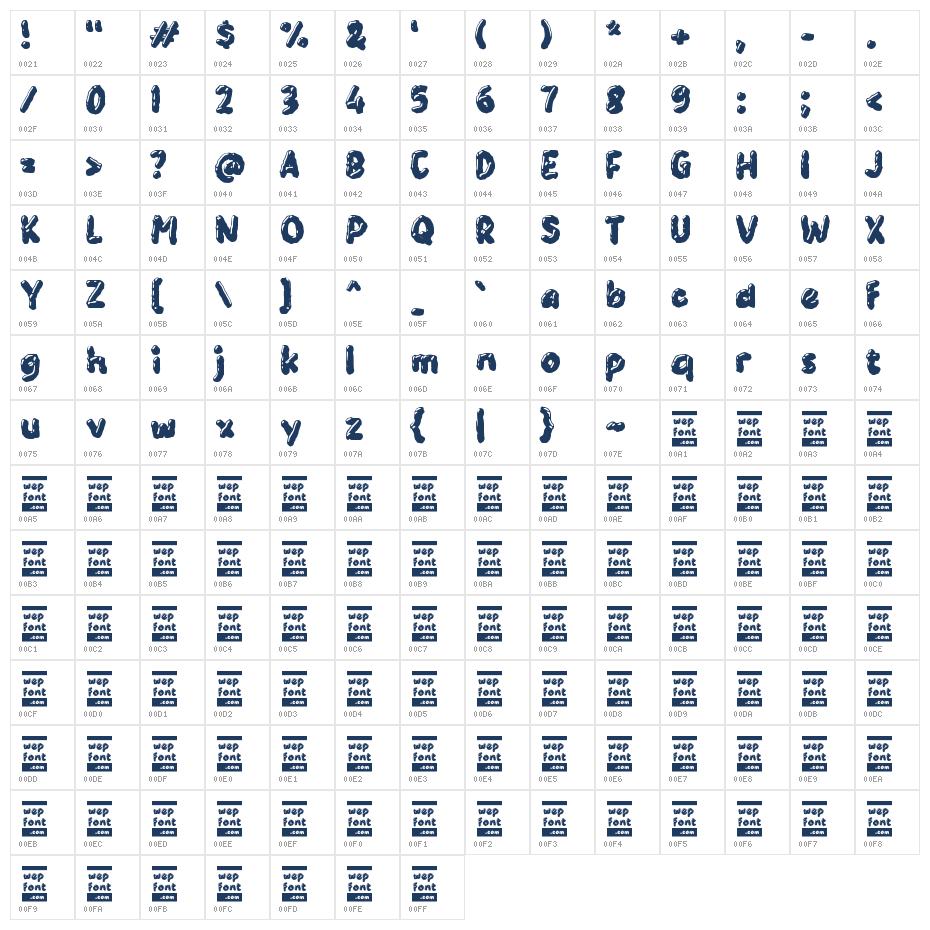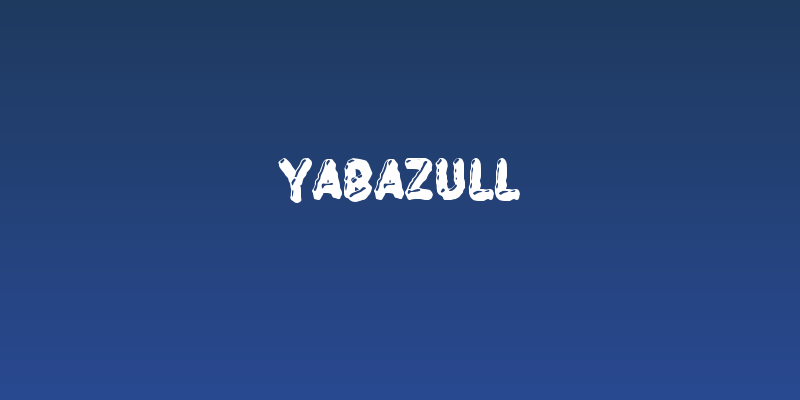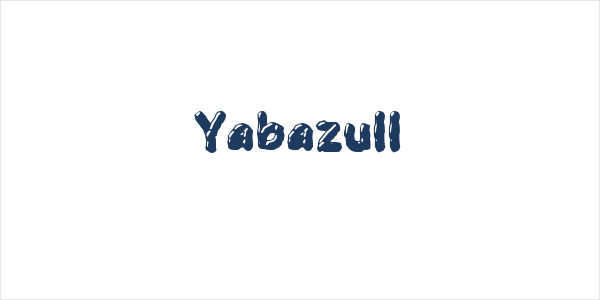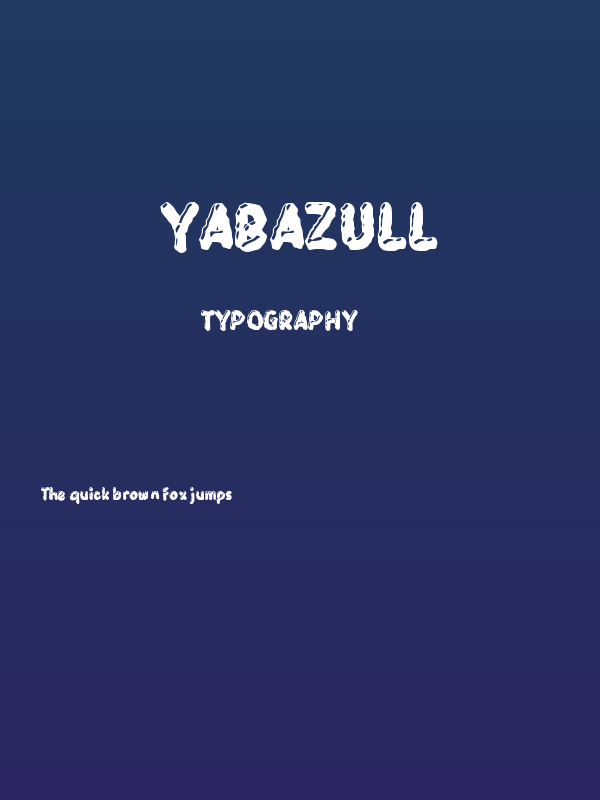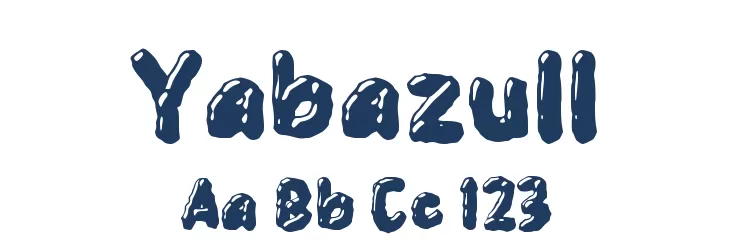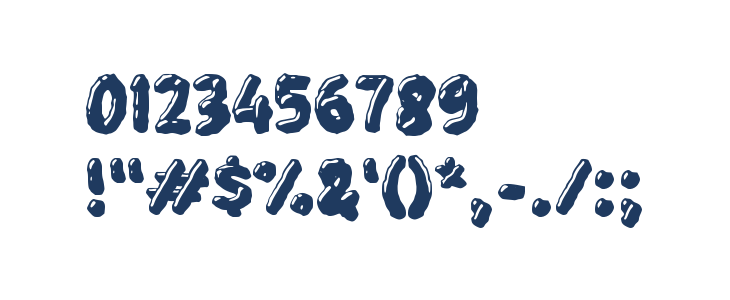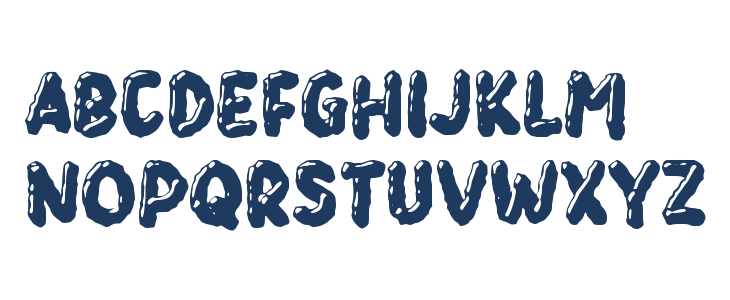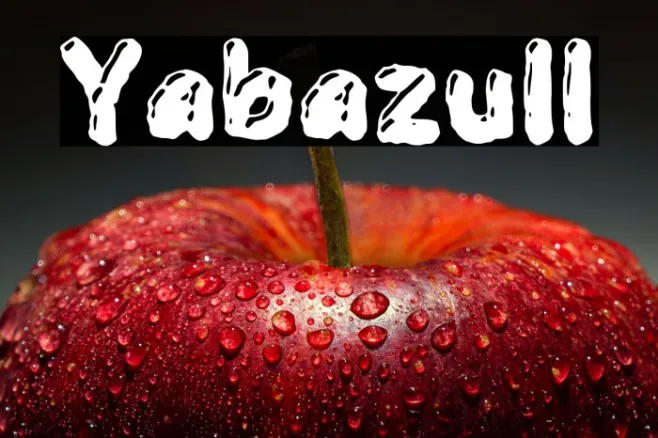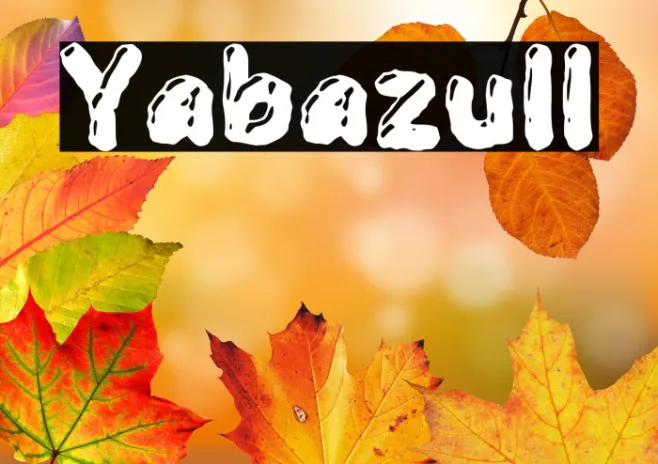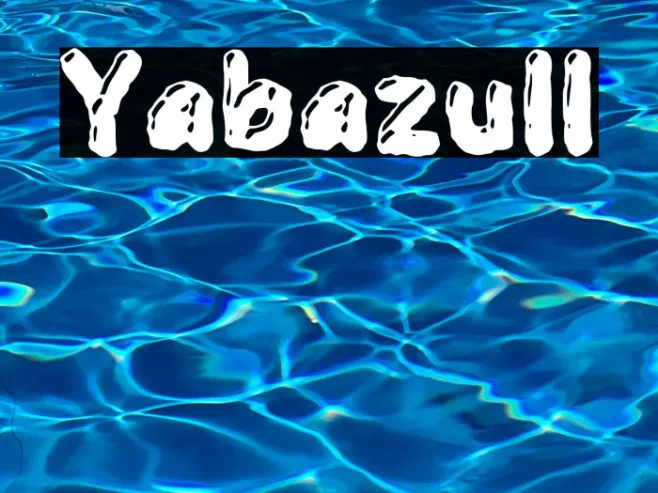
Yabazull Font
Yabazull Description
A playful, textured, handwritten style font with a rough, sketchy appearance, featuring both uppercase and lowercase letters, numbers, and common punctuation.
| Overall Style | Casual, Playful, Handcrafted |
| Use Case | Headlines, Posters, Children's books, Creative branding |